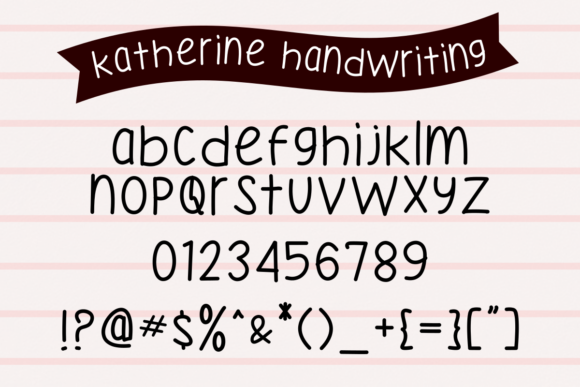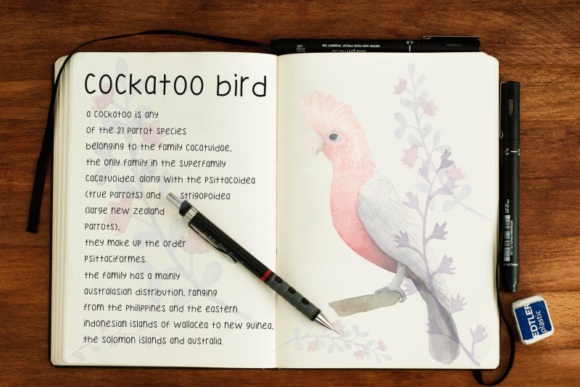
Katherine Handwriting Font
db-ku.com - Script & Handwritten -- Katherine Handwriting is a sweet and casual handwritten font. Its natural style makes it fitting for a wide range of designs, particularly those in need of a personalized touch.